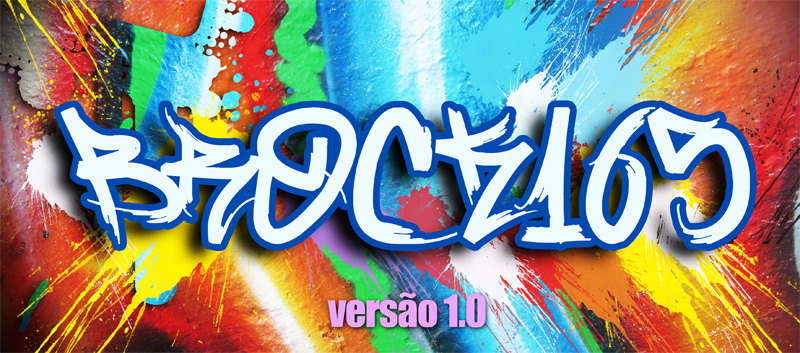
Brock165 Bold by Brock Design is a free graffiti script with broad, forceful strokes and a restless street-lettering silhouette. Sharp cuts, abrupt changes in width, and long flicked extensions make the letters feel fast and improvised, yet their underlying forms stay recognizable.
Rooted in graffiti culture, it is especially convincing for music posters and streetwear branding with a raw, confrontational edge. Album covers and skate merchandise are equally natural territory. The sliced contours and stray paint-like marks can merge with stencil art, torn-paper collage, or urban photography, turning the lettering into part of the image rather than a detached caption.
The Brock165 Regular typeface was created based on urban graffiti in Manaus. It contains uppercase letters, numerals, and some basic characters.